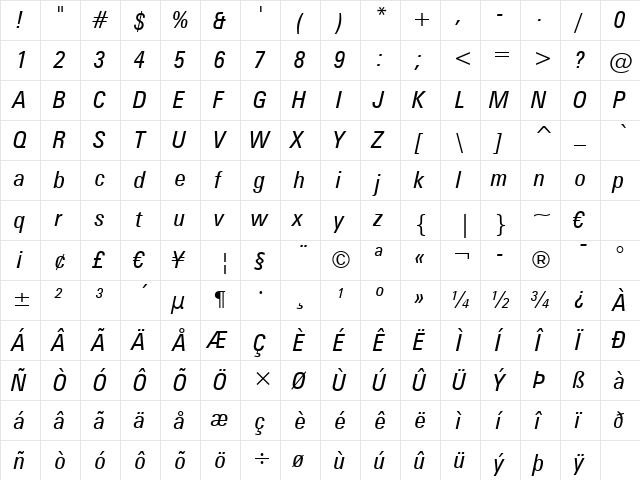
Zurich Cn BT Italic Font Preview
Zurich Cn BT Italic
Design Context for Zurich Cn BT Typeface
Zurich Cn BT takes a measured approach to typography — its balanced proportions and neutral character make it a reliable workhorse for both digital and print work. The slanted form adds forward momentum and visual energy.
Pro Tip: Try Zurich Cn BT for annotation and caption copy alongside an upright companion — the contrast in angle creates a dynamic but ordered typographic system.